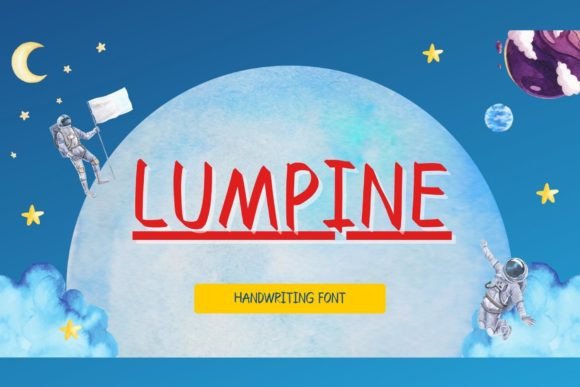
Introducing Lumpine Font, the most charming and adorable script font to grace your digital designs! With its playful, handwritten style, Lumpine is guaranteed to inject a touch of whimsy and delight into any project you undertake.
Journey into the world of customization and creative expression with Lumpine, allowing you to effortlessly create unique and captivating designs that resonate with your audience. Whether you're crafting personalized invitations, designing eye-catching cards, developing distinctive logos, or embarking on any other creative endeavor, Lumpine is your perfect companion.
Step into a realm of imagination and let Lumpine be your guide. Its effortless flow and enchanting curves will transform your words into captivating works of art. As you explore the possibilities, you'll discover endless ways to infuse your designs with personality and charm, making them truly unforgettable.
With Lumpine at your disposal, your designs will exude a sense of playfulness and joy. Its whimsical nature will capture the attention of your audience, leaving them captivated by your creations. Unleash your imagination and let Lumpine guide you on a creative adventure like never before!
Don't miss out on the opportunity to elevate your designs and leave a lasting impression. Embrace the delightful spirit of Lumpine Font and unlock a world of creative possibilities.